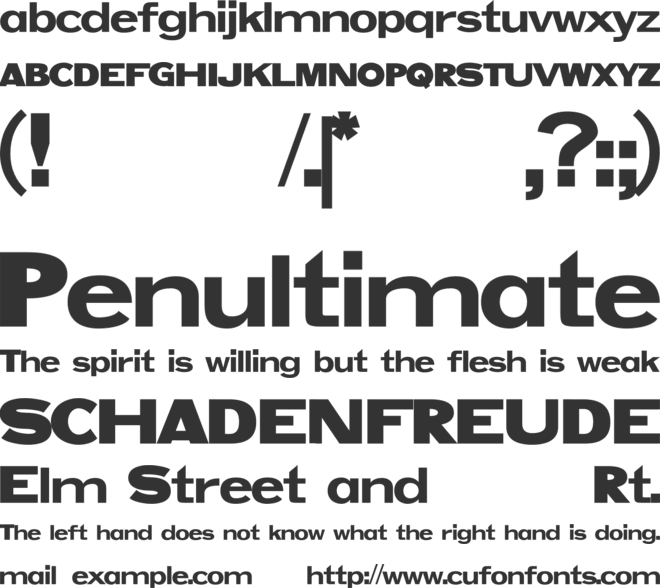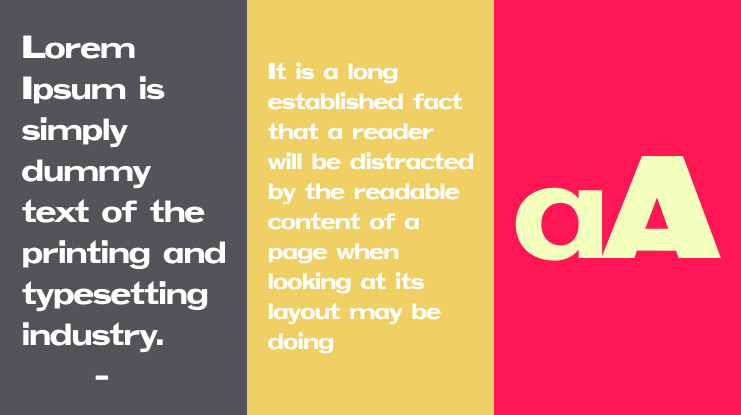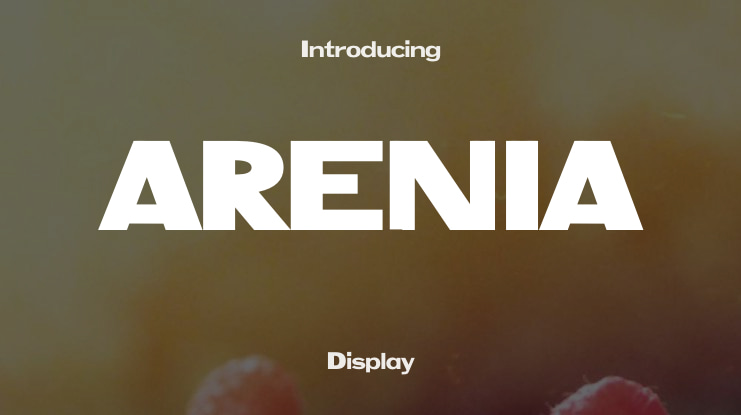
ARENIA Font
🎨 Font Name: ARENIA by Minimalist Art Studio
🎨 Font Description: ARENIA is a minimalist bold sans serif with 600+ glyphs and multilingual support—ideal for editorial design, luxury branding, and modern packaging.